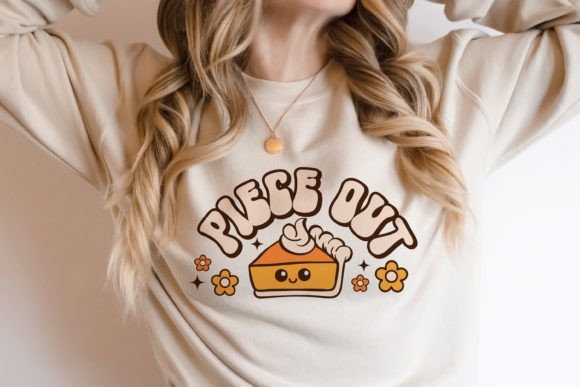
Santa Babe Duo Font
Santa Babe is a cool retro duo font (display and script). It is perfect for any hippie design that requires a groovy look and it’s guaranteed to make an impact. This font is PUA encoded, which means you can access all of the glyphs and swashes with ease!